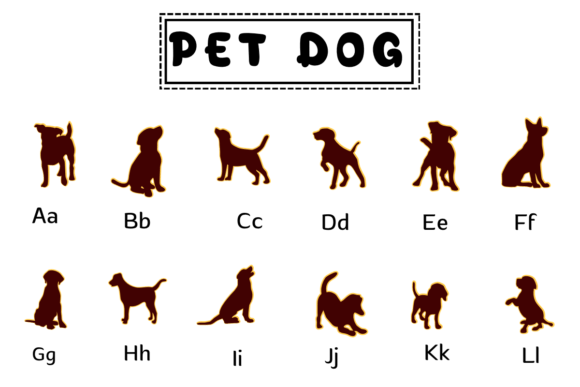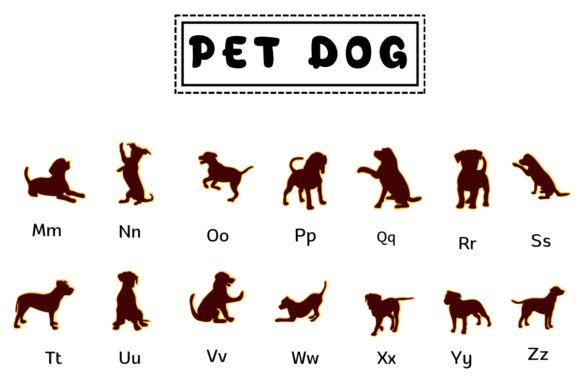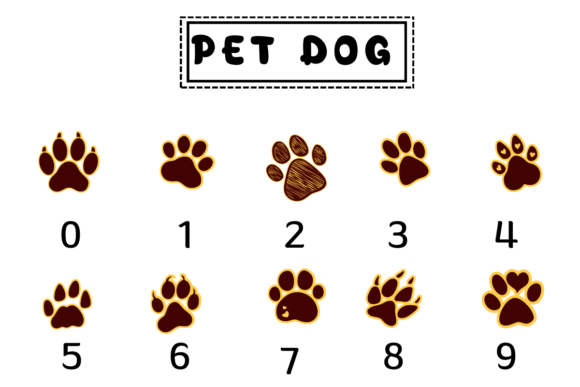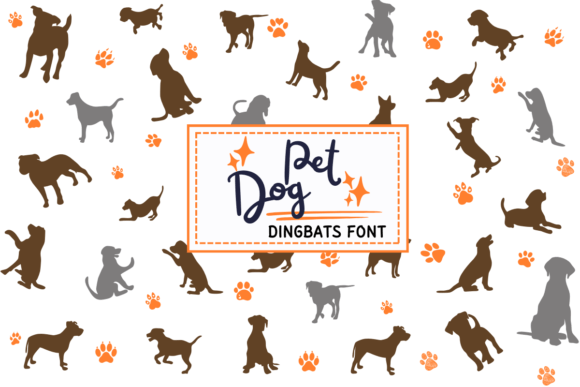
Introduction to Pet Dog Font
Pet Dog is a dingbats font with a canine theme.
This font can enhance your creative projects such as wedding invitations, DIY, crafts, decorations, logos, and many other creative ideas .
Pet Dog Font offers exceptional quality and versatility, making it a valuable addition to your design toolkit. Whether you’re creating for personal projects or commercial use, Pet Dog Font delivers professional results.